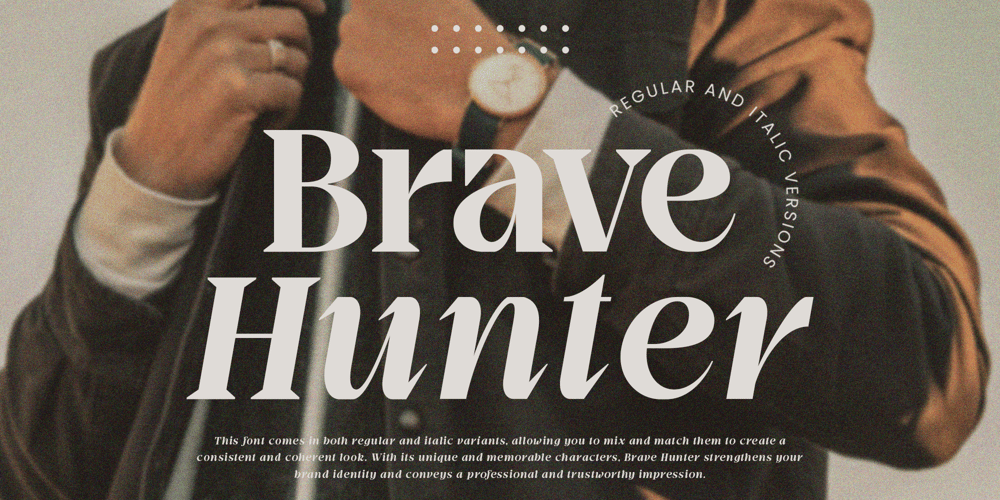
Brave Hunter Font Family was designed by Bakhrudin Ja’far and published by Jafar07. Brave Hunter contains 2 styles and family package options. Brave Hunter is a meticulously designed modern serif font that aims to elevate the professional and luxurious look of your design projects. Its clean and elegant style makes it a perfect fit for headlines, logos, and branding.This font comes in both regular and italic variants, allowing you to mix and match them to create a consistent and coherent look. With its unique and memorable characters, Brave Hunter strengthens your brand identity and conveys a professional and trustworthy impression.With high quality and comprehensive OpenType features, Brave Hunter offers flexibility in design and ensures consistent quality output across various media. Whether you’re looking for a font for web design, print, or social media, Brave Hunter is ready to help you enhance the quality of your design.With Brave Hunter font, you can create elegant, professional, and upscale designs that will enhance your brand image and make it more trustworthy. Don’t hesitate to choose Brave Hunter for any of your design projects that require a modern and professional serif font.